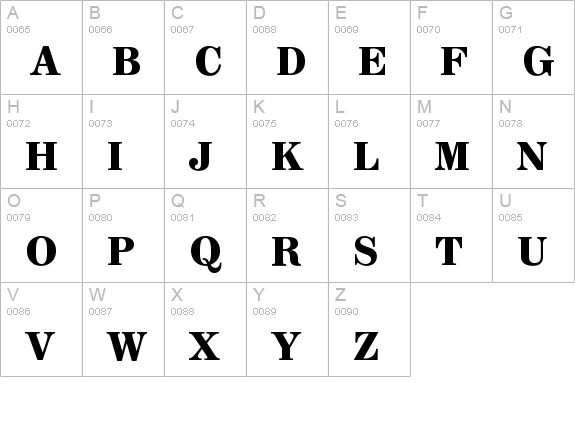
Augustea R Font Details
Augustea R is a stunning and elegant font that exudes sophistication and charm. With its graceful curves and timeless appeal, this typeface is perfect for adding a touch of class to any design project. Whether you're creating wedding invitations, business cards, or social media graphics, Augustea R is sure to make a lasting impression. The best part? Augustea R is available for free download at FontsMarket.com. You can elevate your designs without breaking the bank by adding this beautiful font to your collection. Don't miss out on the opportunity to enhance your projects with the exquisite style of Augustea R. Download it today and let your creativity shine!